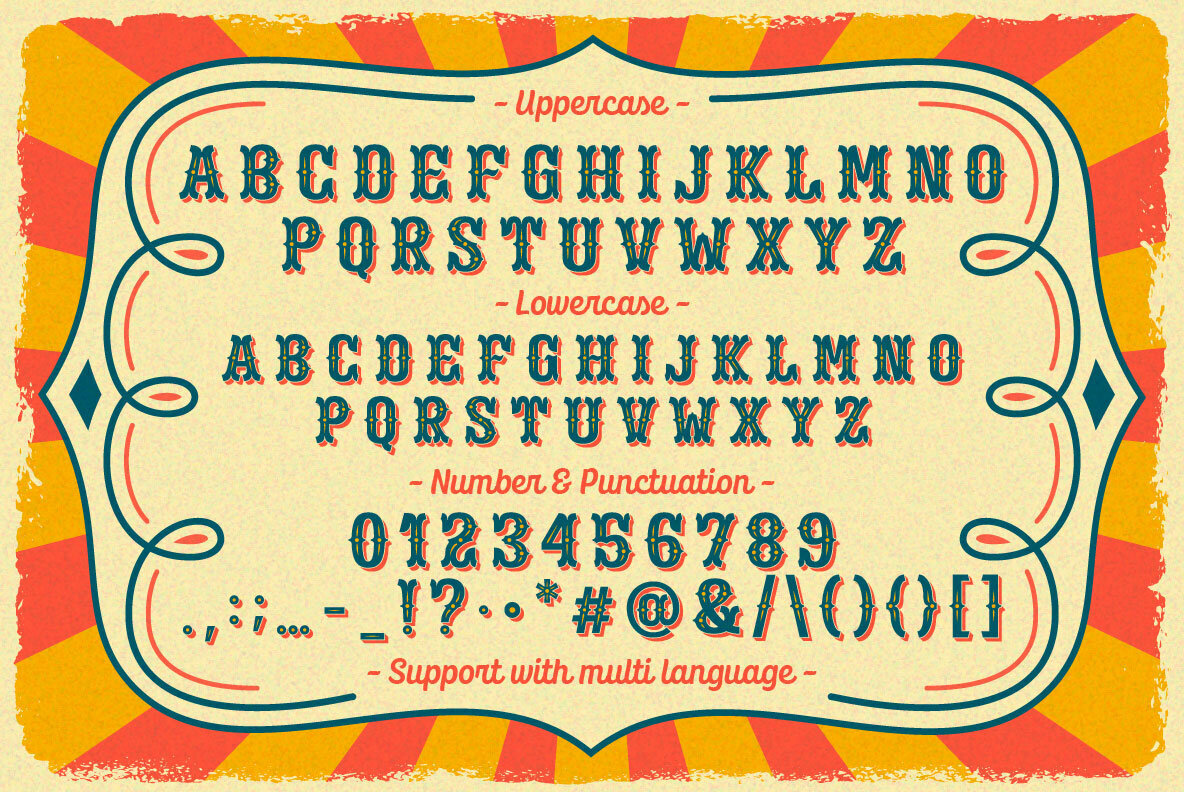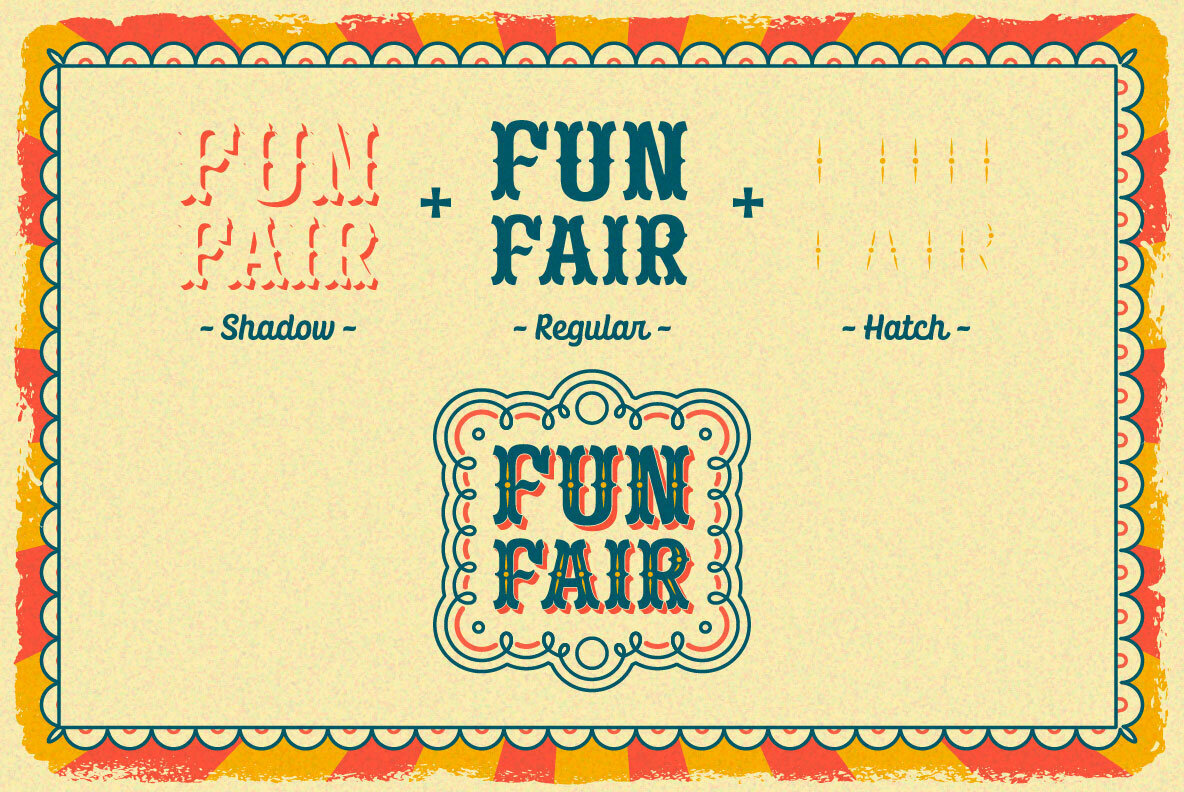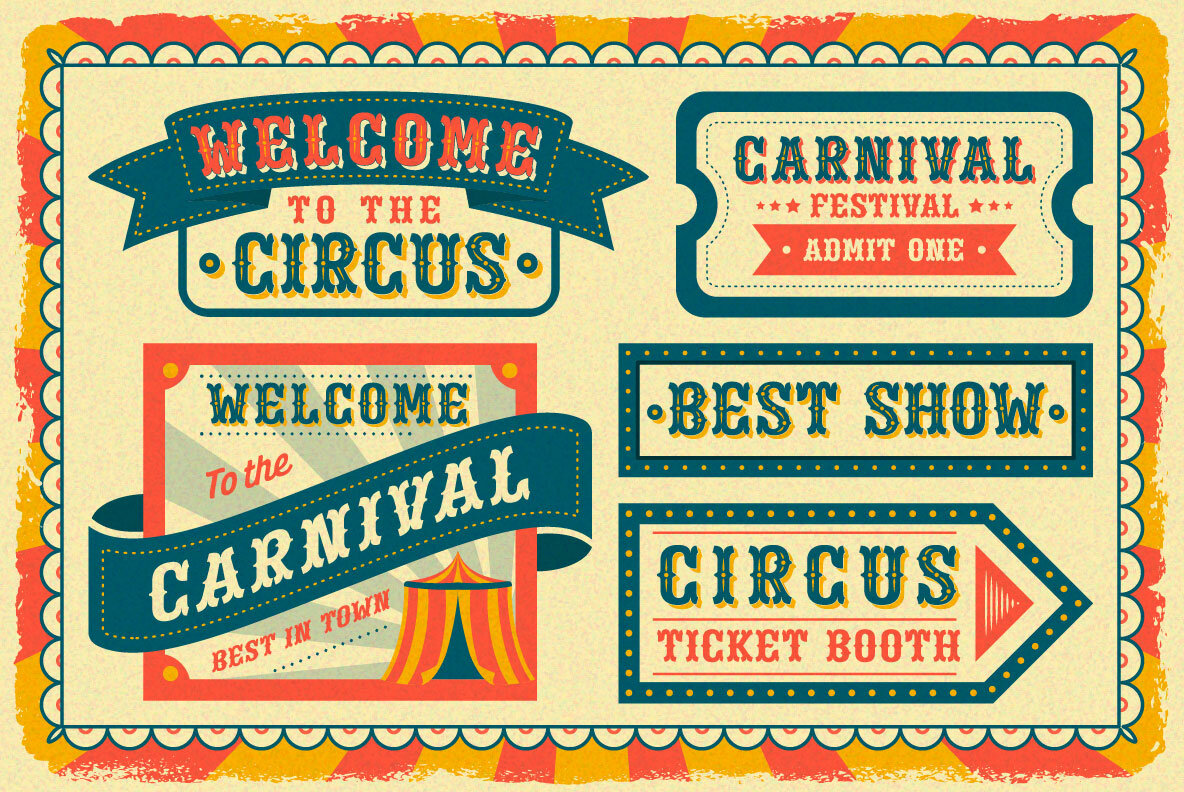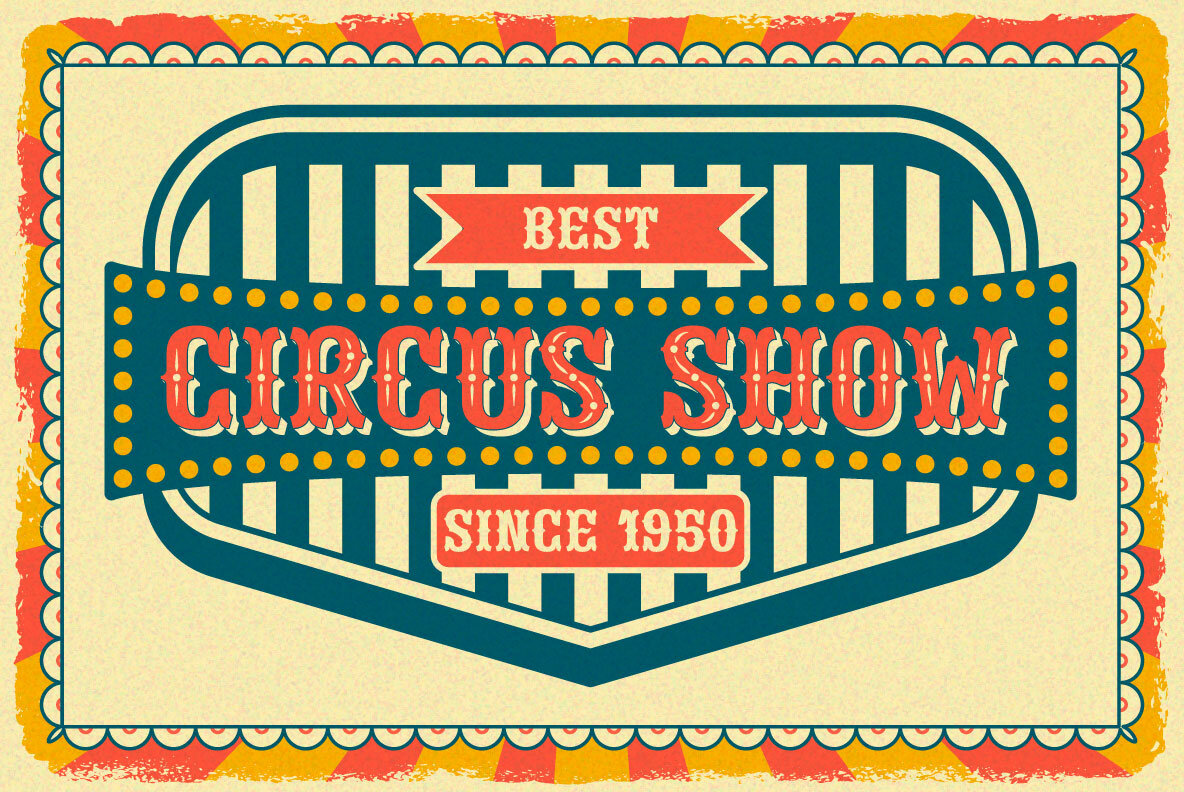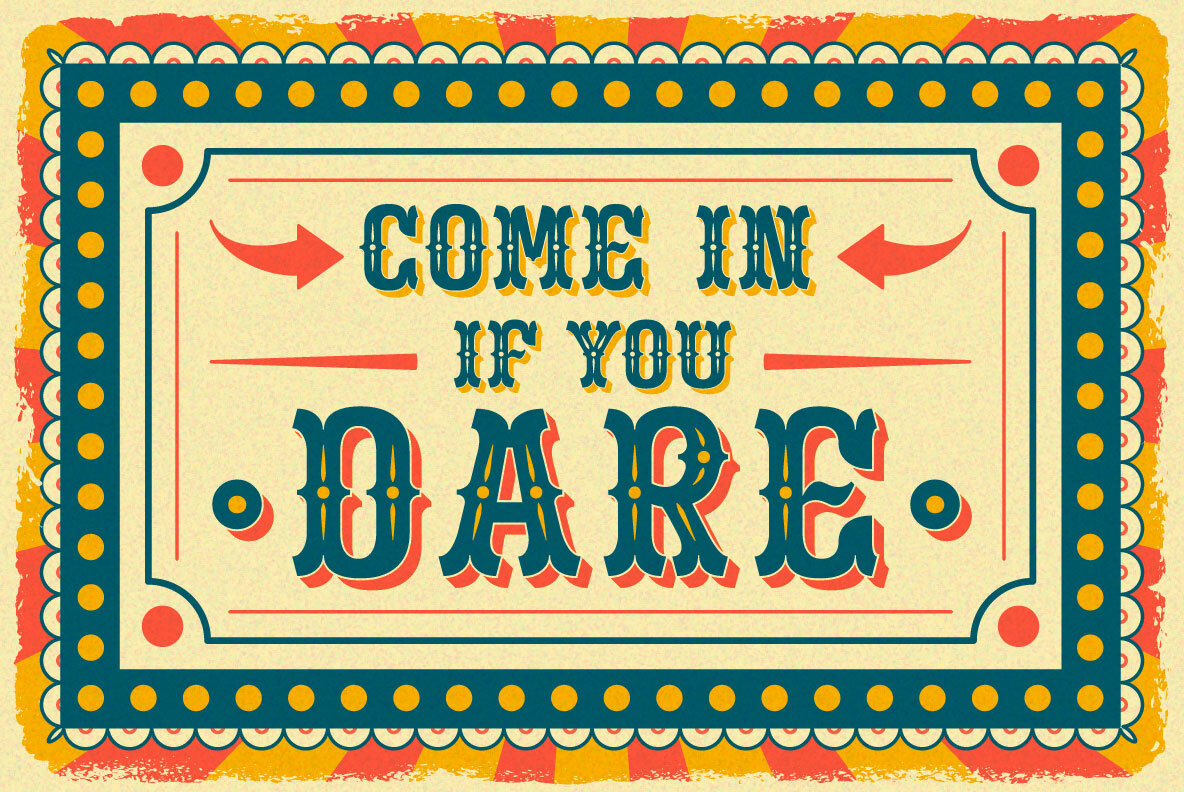
Boggle Royale Font
Introducing Boggle Royale, is layered display typeface. It was inspired by the vintage design on the circus and festival signage. **Boggle Royale** also comes with 3 font, Regular, Shadow, and Hatch. it will make a perfect combination for you to create more detailed designs.
Boggle Royale is perfectly suitable for made to be applied especially in logo, and the other various formal forms such as invitations, labels, logos, magazines, books, greeting / wedding cards, packaging, fashion, make up, stationery, novels, labels or any type of advertising purpose.